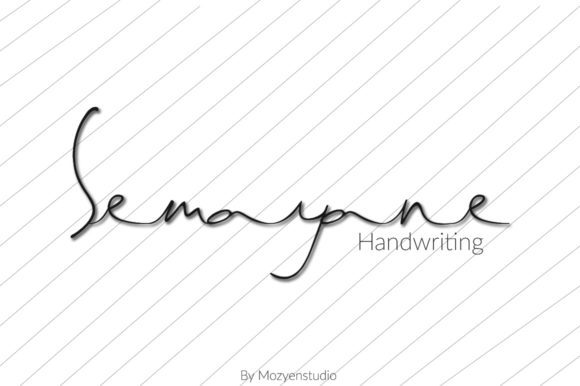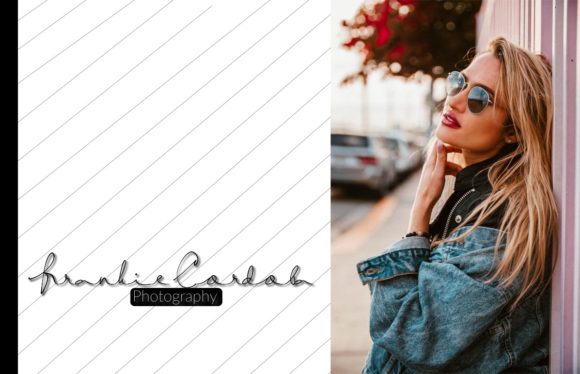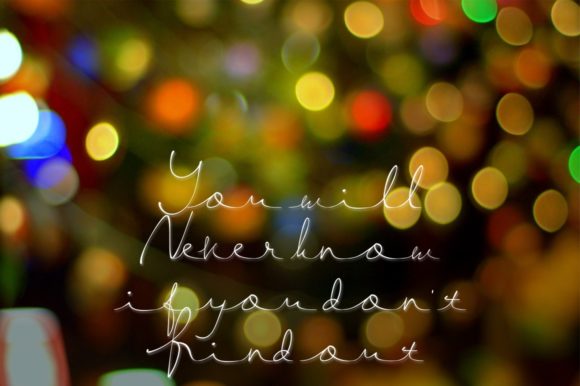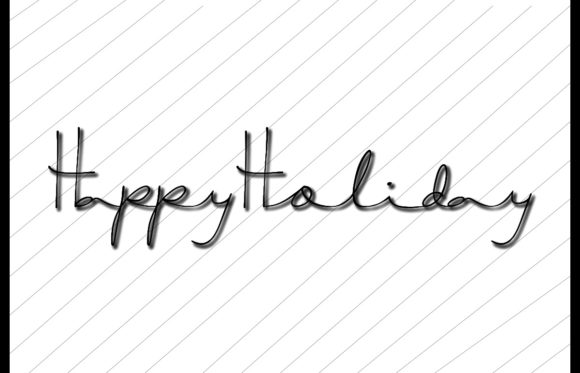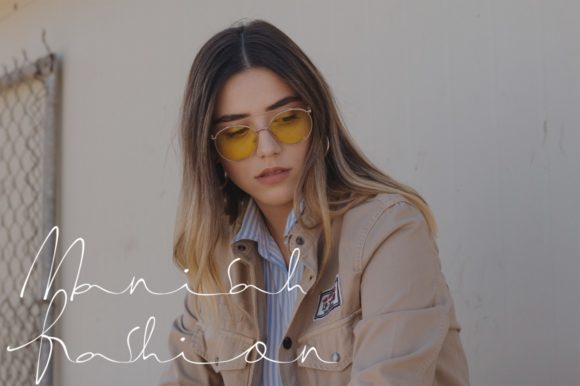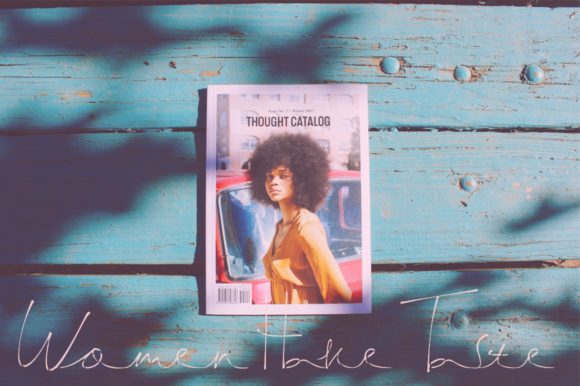
Semayane Font
About Semayane Font
Introducing “The Semayane,” a natural handwritten script font designed to bring a minimalist style and an elegant touch to your projects. This font is more than just a typeface; it’s a design asset crafted with simplicity and sophistication, making it perfect for a wide range of designs that demand a natural and refined aesthetic.
“The Semayane” stands out with its natural handwritten script that exudes a minimalist and elegant style. Whether you’re working on branding, invitations, logos, quotes, or any project that requires a touch of simplicity and sophistication, this font delivers with its unique and understated charm.
Its minimalist style ensures a clean and elegant presentation of your text, making it suitable for various applications. Logos designed with this font convey a sense of modernity and simplicity, creating a memorable and contemporary brand identity. Branding materials, invitations, quotes, and other designs crafted with “The Semayane” carry a natural and refined vibe, making them visually appealing and versatile.
The versatility of “The Semayane” makes it a great choice for a variety of creative applications, providing a natural and handwritten look that adds an elegant touch to any design context.
In summary, “The Semayane” is more than just a font; it’s a design companion that brings a natural handwritten script style with a minimalist and elegant feel to your projects. Embrace its simplicity for branding, invitations, logos, and more, and let “The Semayane” elevate your designs with a touch of understated charm.